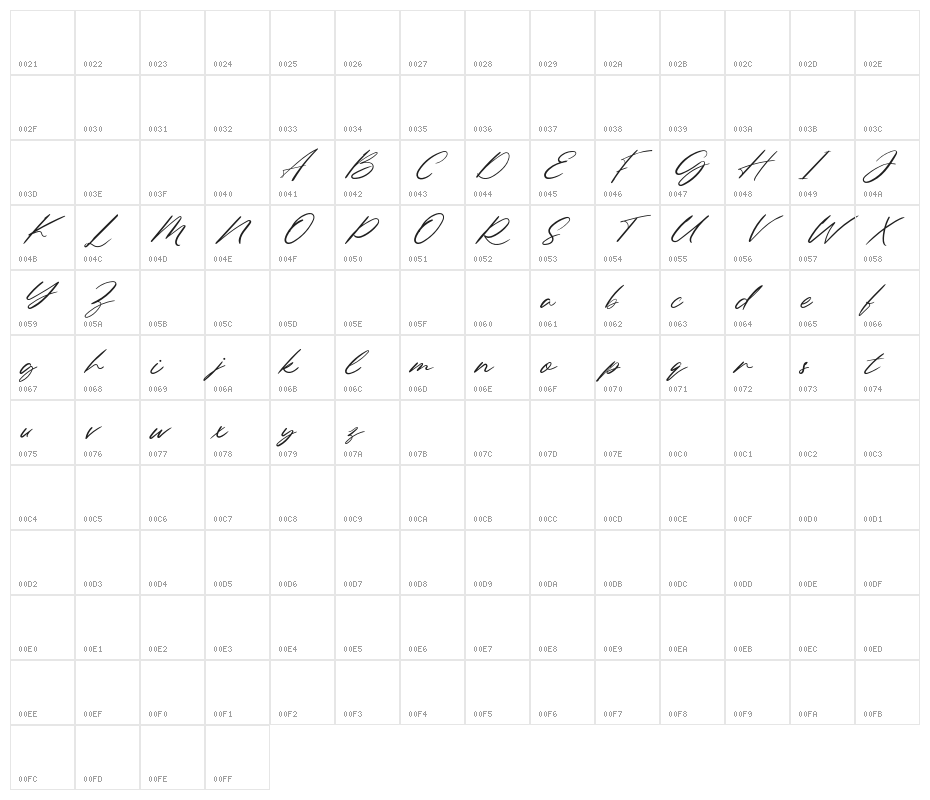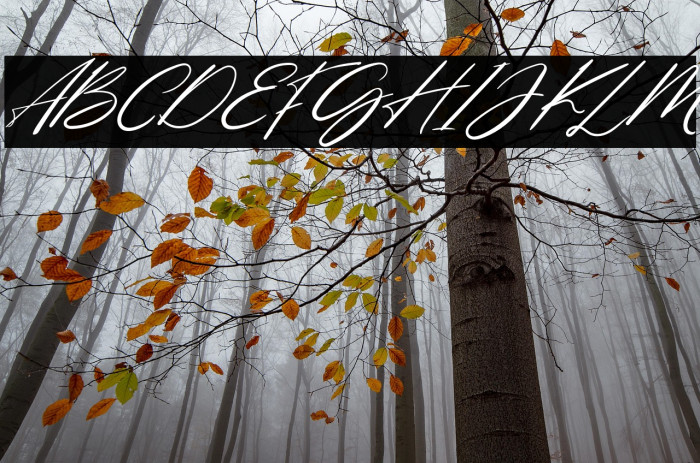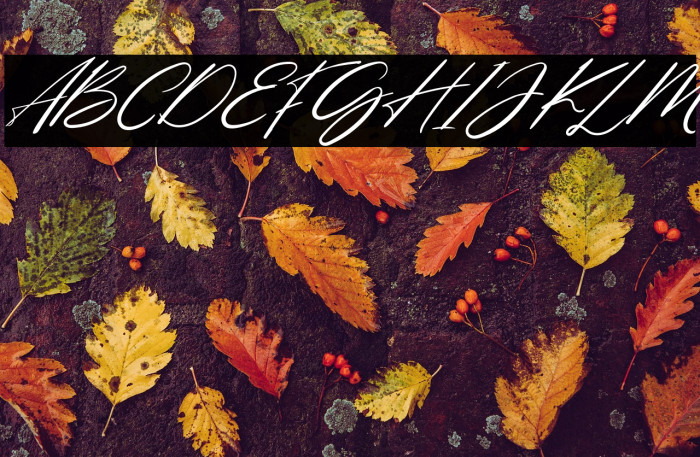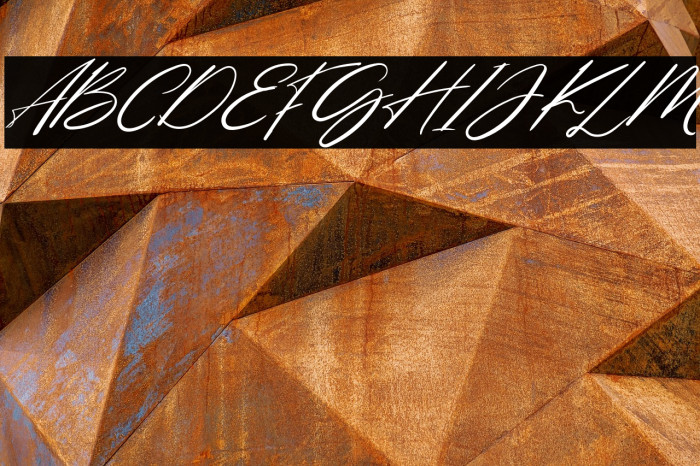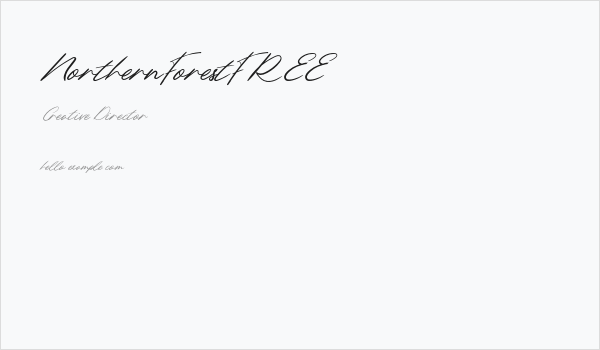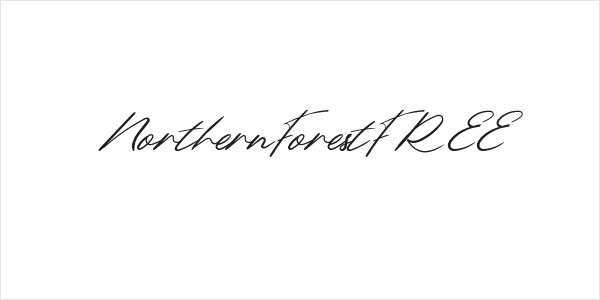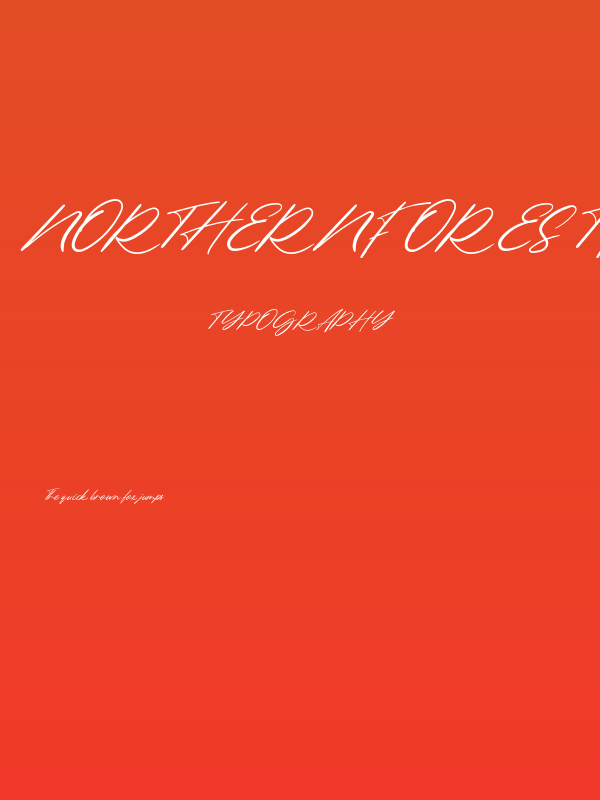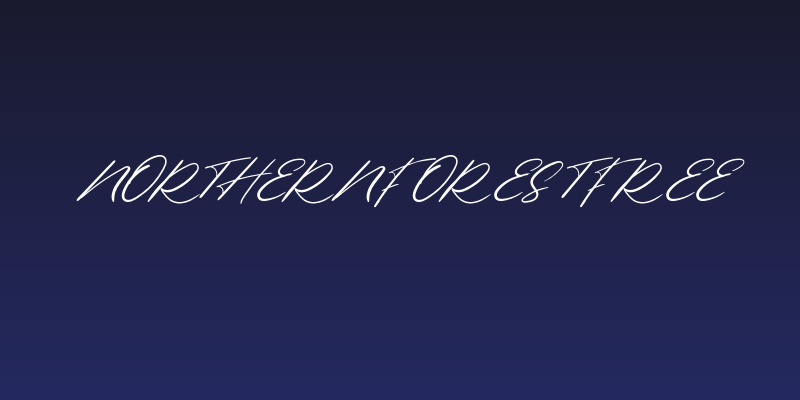
NorthernForestFREE Font
NorthernForestFREE Description
This font exudes a dynamic and elegant script style, characterized by its fluid and continuous strokes that mimic the natural flow of handwriting. The uppercase letters are tall and slightly slanted, giving a sense of movement and grace. The lowercase letters maintain a consistent rhythm, with loops and curves that add a touch of sophistication. The overall appearance is both artistic and legible, making it suitable for a variety of creative applications. The font's design is reminiscent of calligraphy, with a modern twist that enhances its versatility.